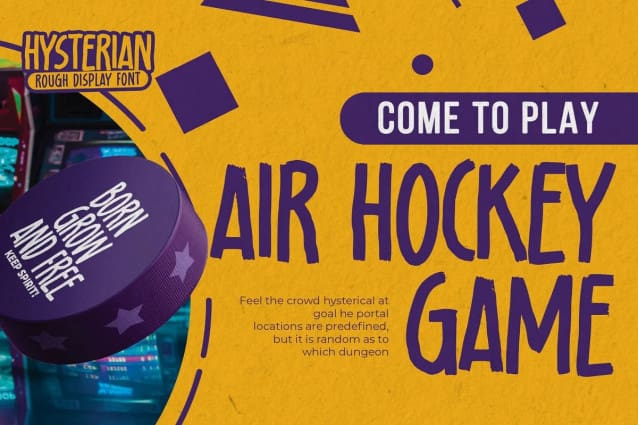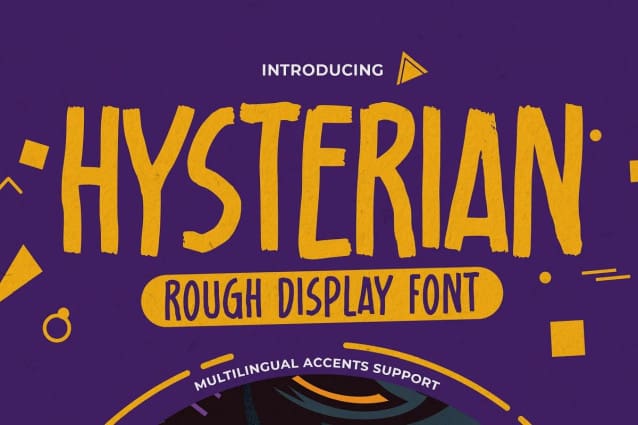
Hysterian Display Font
Hysterian Display Font is a Rough Display Font.This Playful Kids with a natural feel. This handmade font will make your design has a beautiful natural touch for each details. It is perfect for any design project as Invitation,logo, Kids,book cover, craft or any design purposes. This font is PUA encoded which means you can access all of the magical glyphs. That is Hysterian has charming unique,authentic and relaxed characteristic more natural look to your text. It also features a wealth of special features including Alternates glyphs.